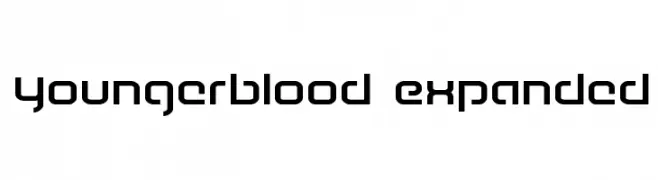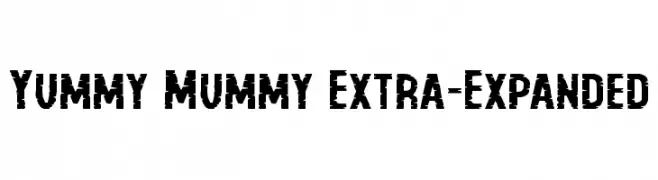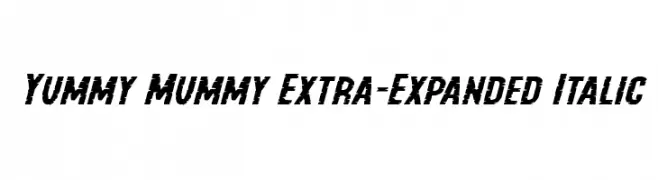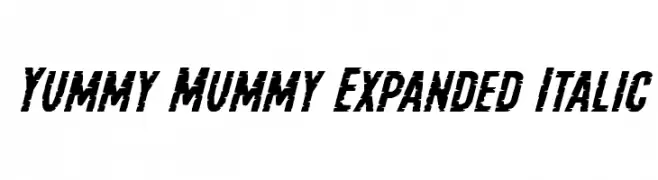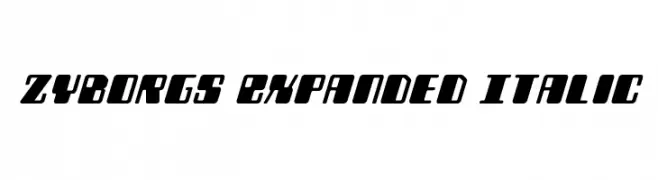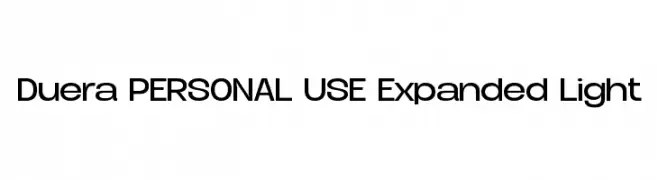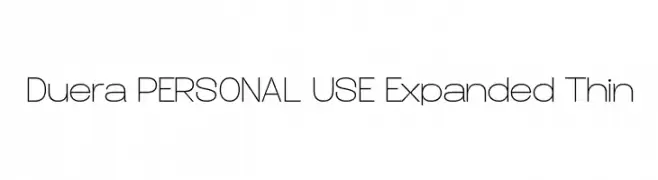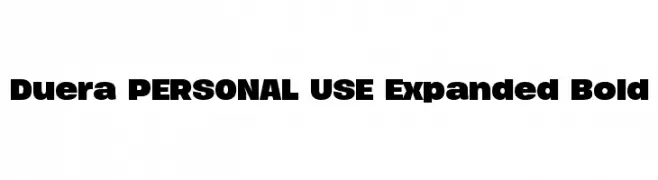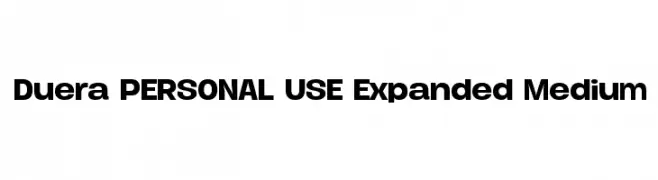
A modern, geometric font with bold, rounded characters and expanded width.
A bold, distressed font with a rugged, grunge-like appearance and expanded width.
A bold, italic, extra expanded font with a jagged texture.
A bold, expanded, and italic font with a dynamic and edgy style.
A bold, expanded, and italicized font with a futuristic and geometric style.
A modern sans-serif font with expanded, clean letterforms and a sleek appearance.
A modern, expanded, and thin font with clean lines and minimal contrast.
A bold, expanded font with a modern and impactful style.
A bold, modern font with expanded letterforms and consistent thickness.
An ultra-light, extra-expanded font with a sleek, modern design.